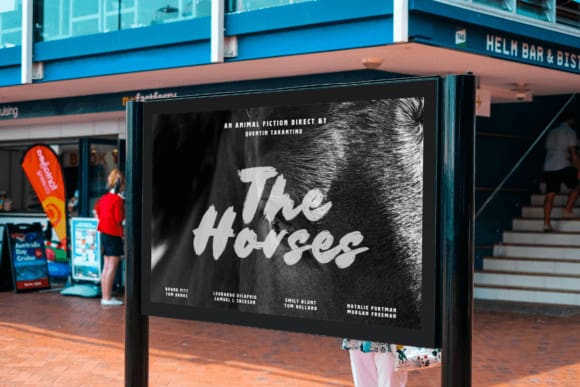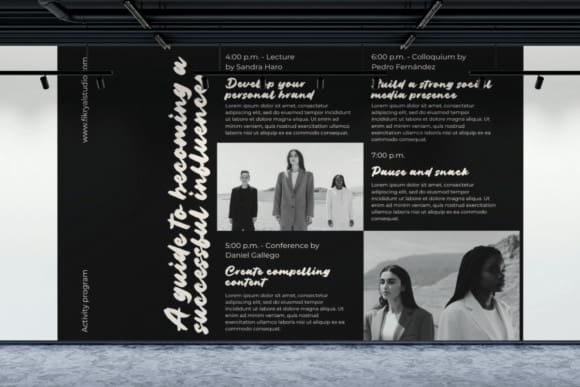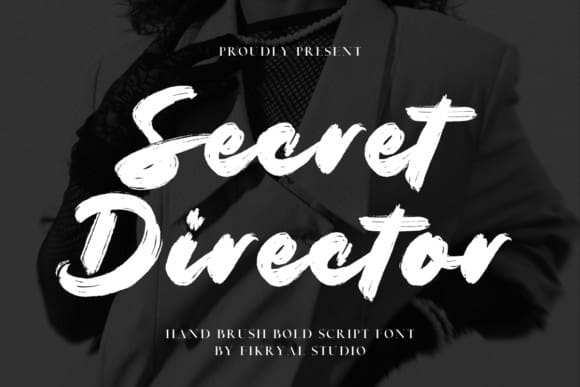
Secret Director Font
Secret Director Font – Handbrush Bold Script font, where every stroke tells a story of whispered secrets and clandestine adventures. This font embodies boldness and elegance, with its hand brushed strokes adding a touch of authenticity and warmth to any project. Each character carries an air of mystery, inviting the reader to delve deeper into its expressive curves and loops.